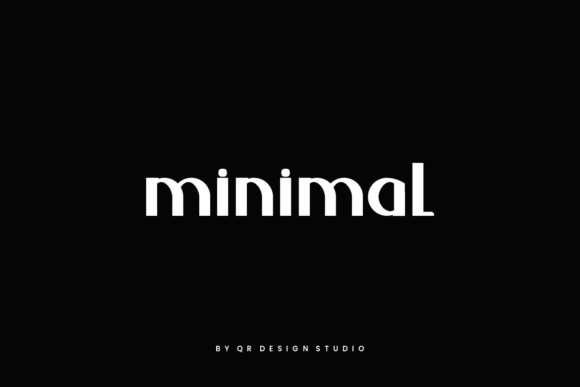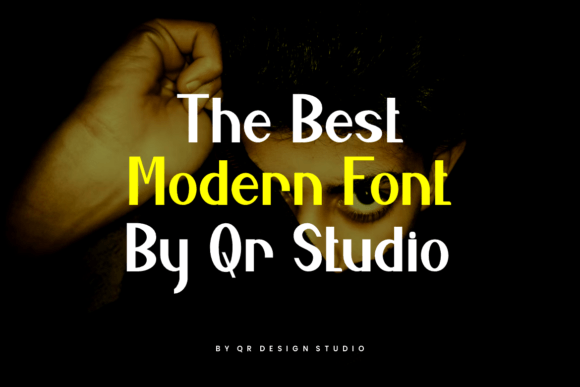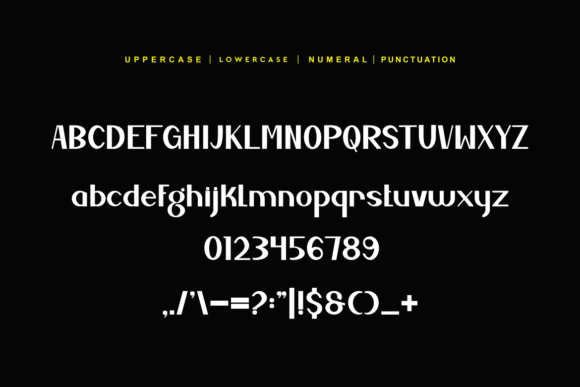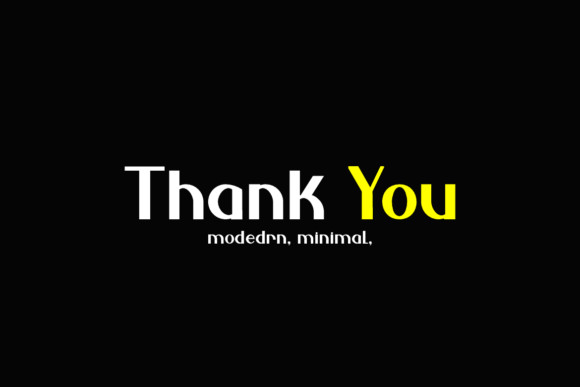
Introducing Edogohe Font: The Timeless Sans Serif for Stunning Designs
Are you a designer or crafter looking for the perfect font to elevate your creative projects? Look no further than Edogohe Font, a lovely and timeless sans serif font that’s sure to make your designs come alive. In this article, we’ll dive into the world of Edogohe Font and explore its unique features, benefits, and uses.
The Beauty of Edogohe Font
Edogohe Font is a stunning sans serif font that’s perfect for creating eye-catching logos, branding, and quotes. What sets it apart from other fonts is its unique and beautiful touch. Every letter has been carefully crafted to bring a sense of elegance and sophistication to your designs. Whether you’re working on a logo, brochure, or social media post, Edogohe Font is sure to make a lasting impression.
Unique Features of Edogohe Font
So, what makes Edogohe Font so special? Here are just a few of its unique features:
• Timeless Design: Edogohe Font has a classic, timeless design that’s perfect for creating designs that won’t go out of style.
• Beautiful Touch: Every letter has a unique and beautiful touch that adds a touch of elegance to your designs.
• Sans Serif: The sans serif design of Edogohe Font makes it perfect for creating clean, modern designs.
• Versatile: Edogohe Font is versatile and can be used for a wide range of design projects, from logos and branding to quotes and social media posts.
Benefits of Using Edogohe Font
So, why should you choose Edogohe Font for your design projects? Here are just a few benefits:
• Easily Readable: Edogohe Font is easy to read, even at small sizes, making it perfect for creating designs that need to be legible.
• Customizable: Edogohe Font is highly customizable, allowing you to adjust the size, color, and style to fit your design needs.
• Unique Designs: With Edogohe Font, you can create unique and eye-catching designs that will stand out from the crowd.
• Time-Saving: Edogohe Font is a pre-designed font, saving you time and effort in creating your own custom font.
Uses of Edogohe Font
Edogohe Font is a versatile font that can be used for a wide range of design projects, including:
• Logo Design: Edogohe Font is perfect for creating eye-catching logos that will make your brand stand out.
• Branding: Use Edogohe Font to create consistent branding across all your marketing materials.
• Quotes: Edogohe Font is great for creating inspirational quotes, posters, and social media posts.
• Social Media Graphics: Use Edogohe Font to create stunning social media graphics that will grab the attention of your followers.
Tips for Using Edogohe Font
Here are a few tips for using Edogohe Font in your design projects:
• Experiment with Sizes: Try out different sizes of Edogohe Font to see what works best for your design.
• Play with Colors: Experiment with different colors to find the perfect match for your design.
• Mix and Match: Try pairing Edogohe Font with other fonts to create a unique and eye-catching design.
Font Name Edogohe Font
Author qrdesignstd